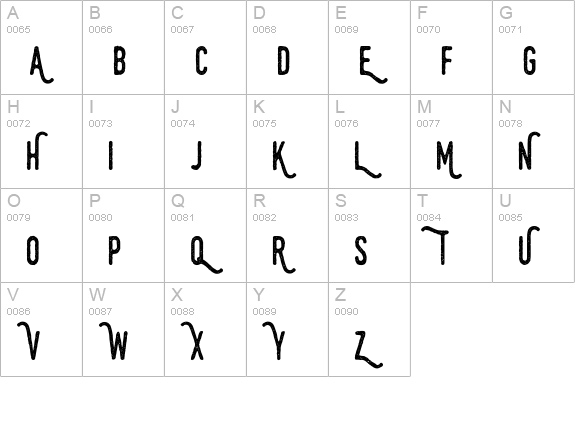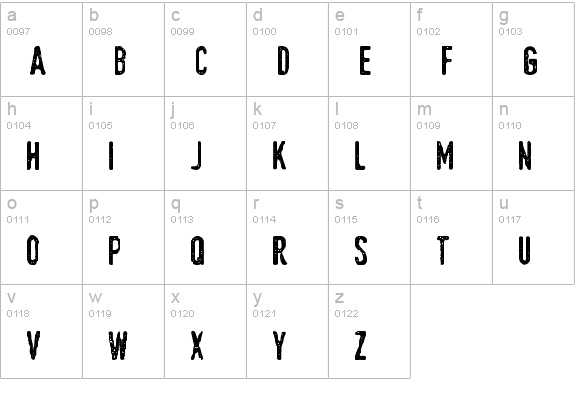
Introducing Swistblnk Monthoers, a captivating font that will leave a lasting impression on any design project. With its unique and artistic appeal, this font is perfect for adding a touch of elegance and sophistication to any creative endeavor. Swistblnk Monthoers features a delicate balance between sharp edges and smooth curves, creating a harmonious blend of modernity and grace. Its sleek and stylish appearance makes it suitable for a wide range of applications, from logo designs and branding projects to invitations, packaging, and more. One of the most appealing aspects of Swistblnk Monthoers is that it is freely available to download at FontsMarket.com. This means that designers and creatives can easily access this exquisite font without any financial constraints, making it an invaluable resource for both personal and commercial projects. With a wide array of alternate characters and ligatures, Swistblnk Monthoers offers endless opportunities for customization, allowing designers to truly make their work stand out from the crowd. Its versatility and adaptability make it a go-to choice for designers seeking a font that can effortlessly convey various moods and messages. Swistblnk Monthoers is more than just a font; it is a tool that empowers designers to unleash their creativity and bring their visions to life. So why wait? Download Swistblnk Monthoers for free at FontsMarket.com and unlock a world of possibilities for your next design adventure.